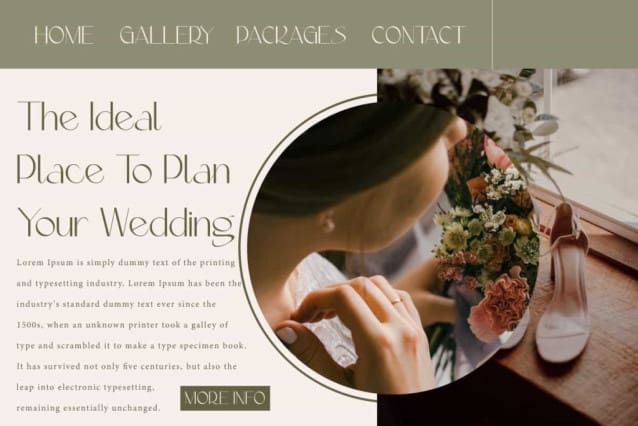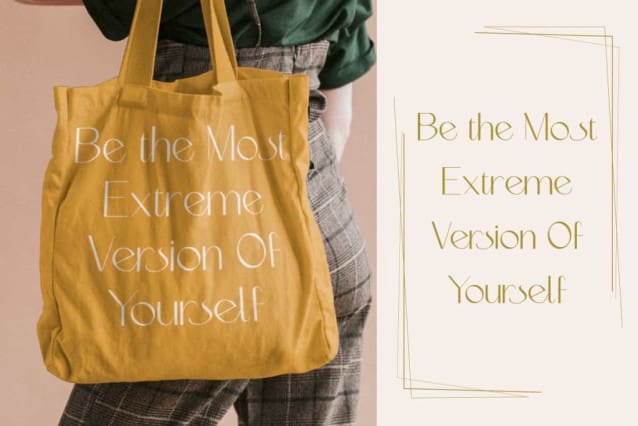
Yellow Element Font
Yellow Element Font is an elegant sans serif display font with unique modern style. This font has thin line characters so it can make your design look clean and luxurious. It will suits many designs, such as brochure, business card, custom design, gift box, invitation, label, product packaging, quote, screen printing, signage, stationery, website, and more!
Yellow Element Font includes full set of Uppercase and Lowercase Basic Characters, Numerals, Punctuation, Symbol, and Ligature characters. This font is inspired by minimalist luxury and will be suitable for many industries, such as advertising, beauty product, event or wedding organizer, fashion, florist, furniture, handicraft, jewelry and accessories, resort, restaurant, etc.